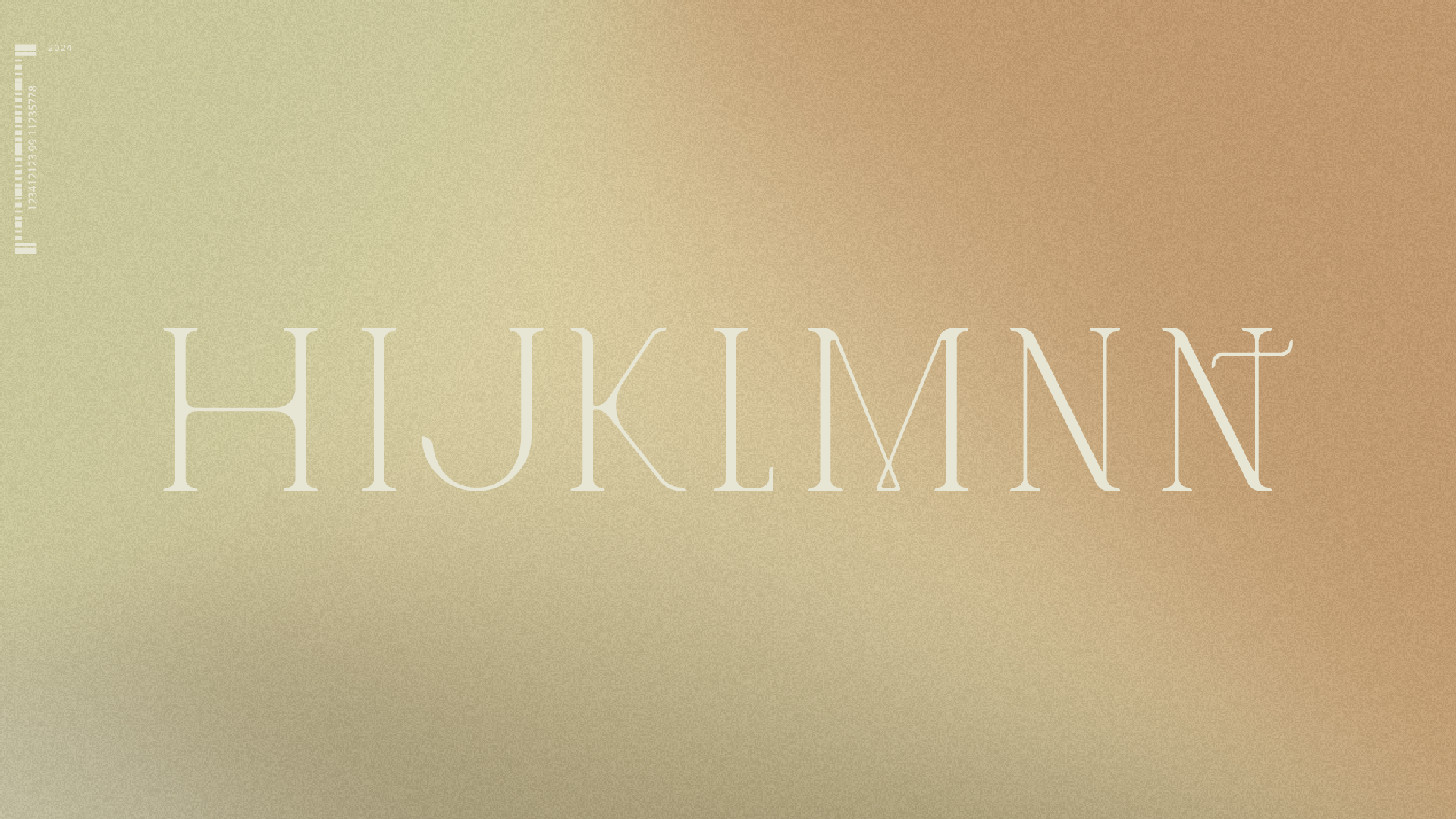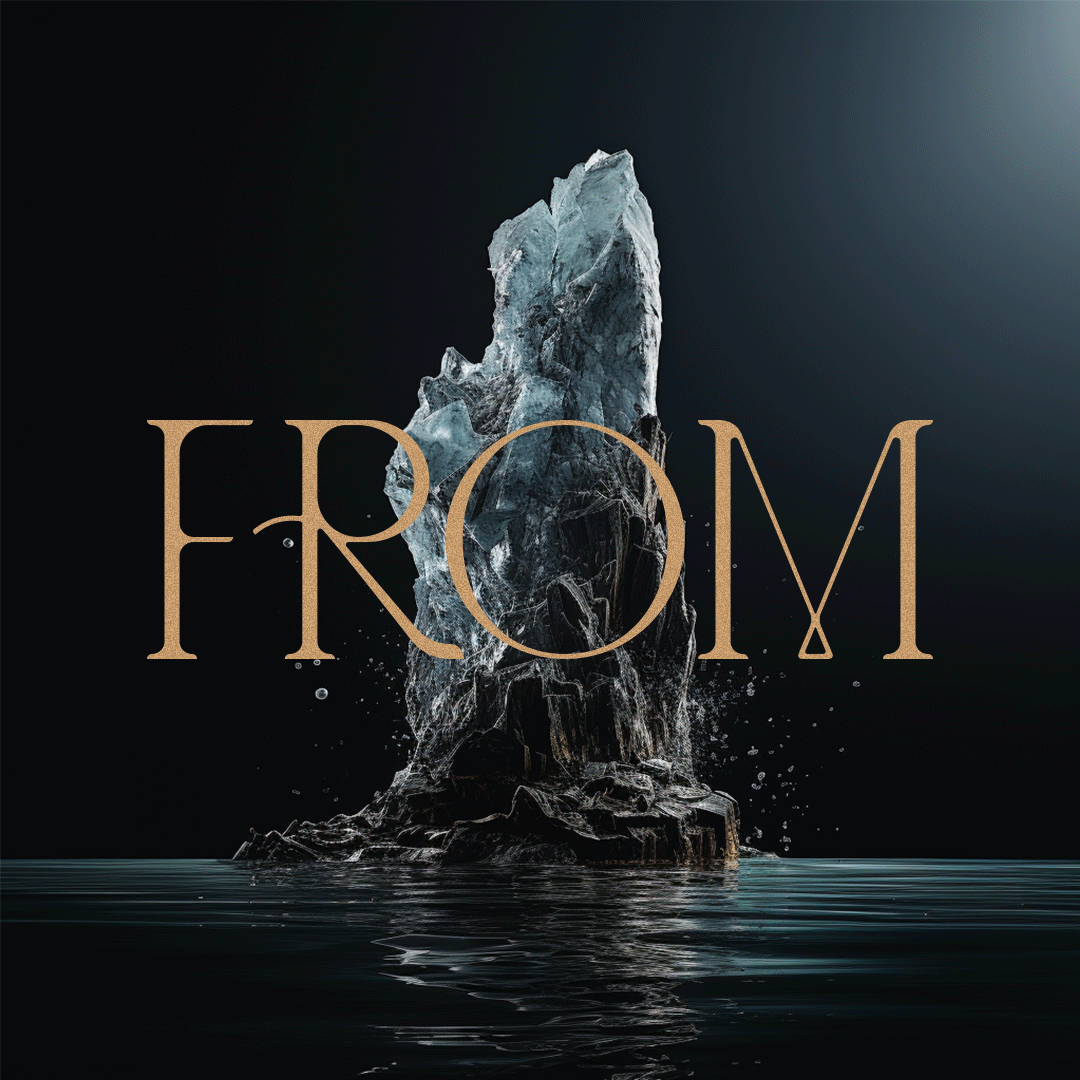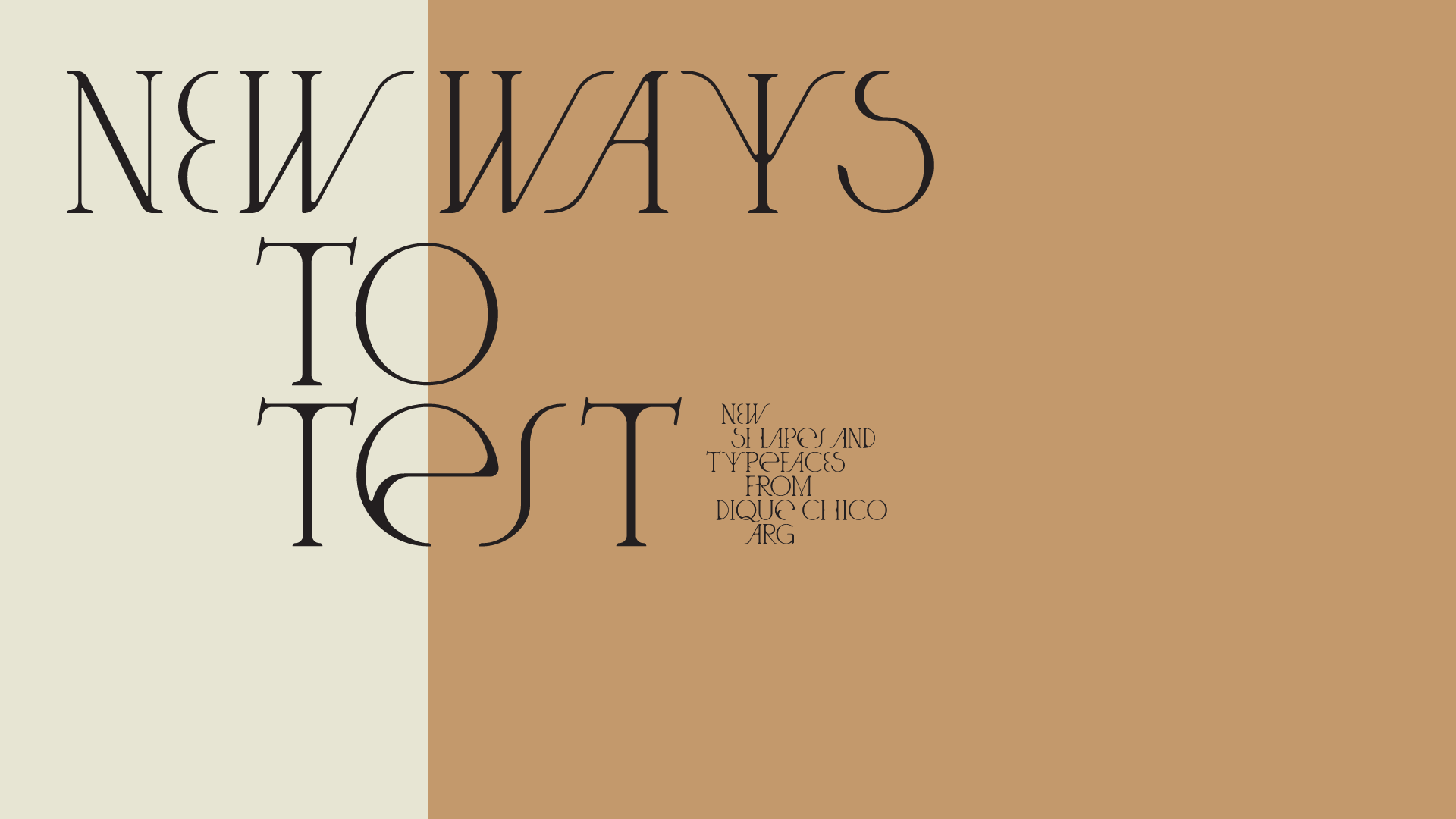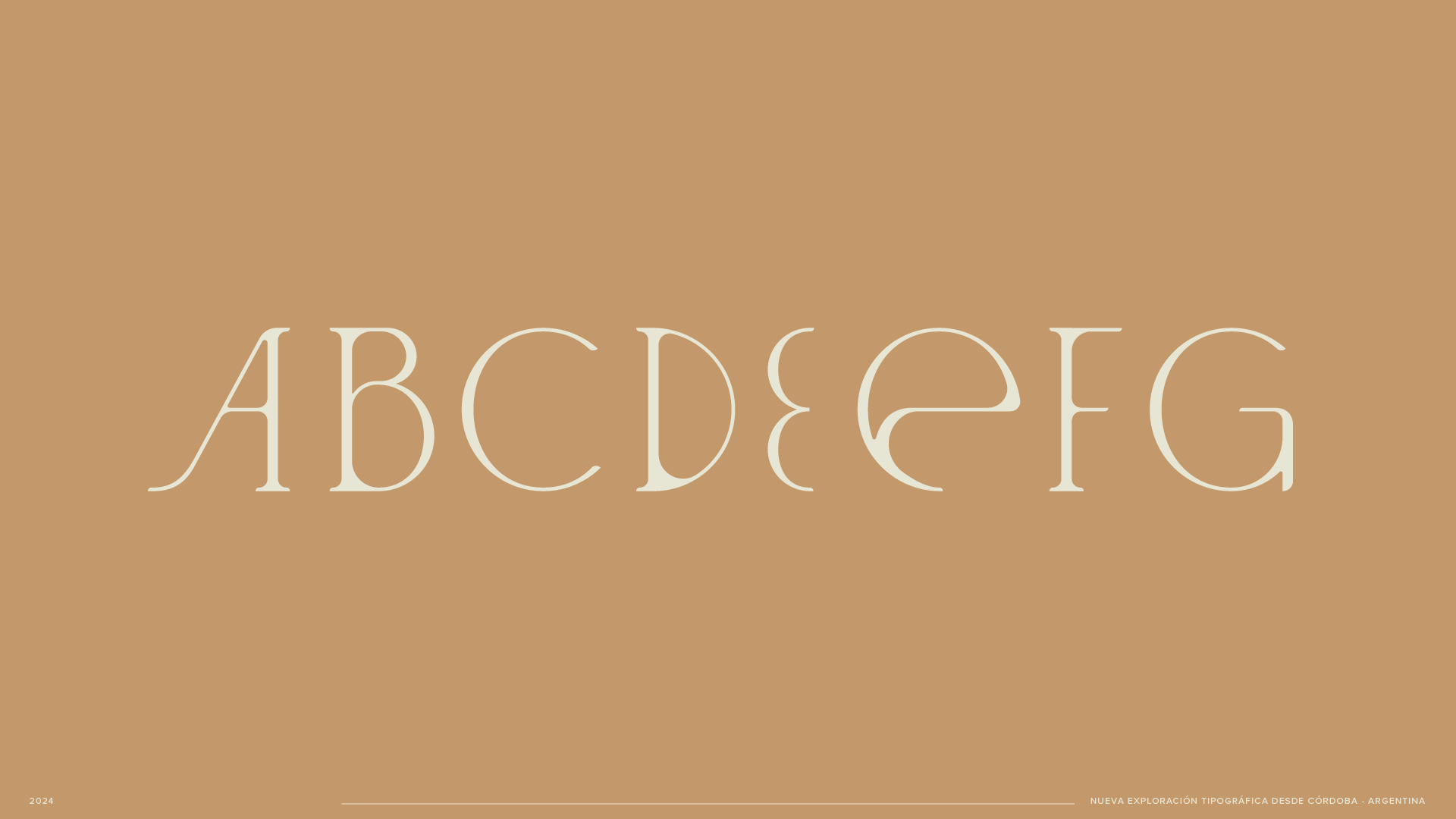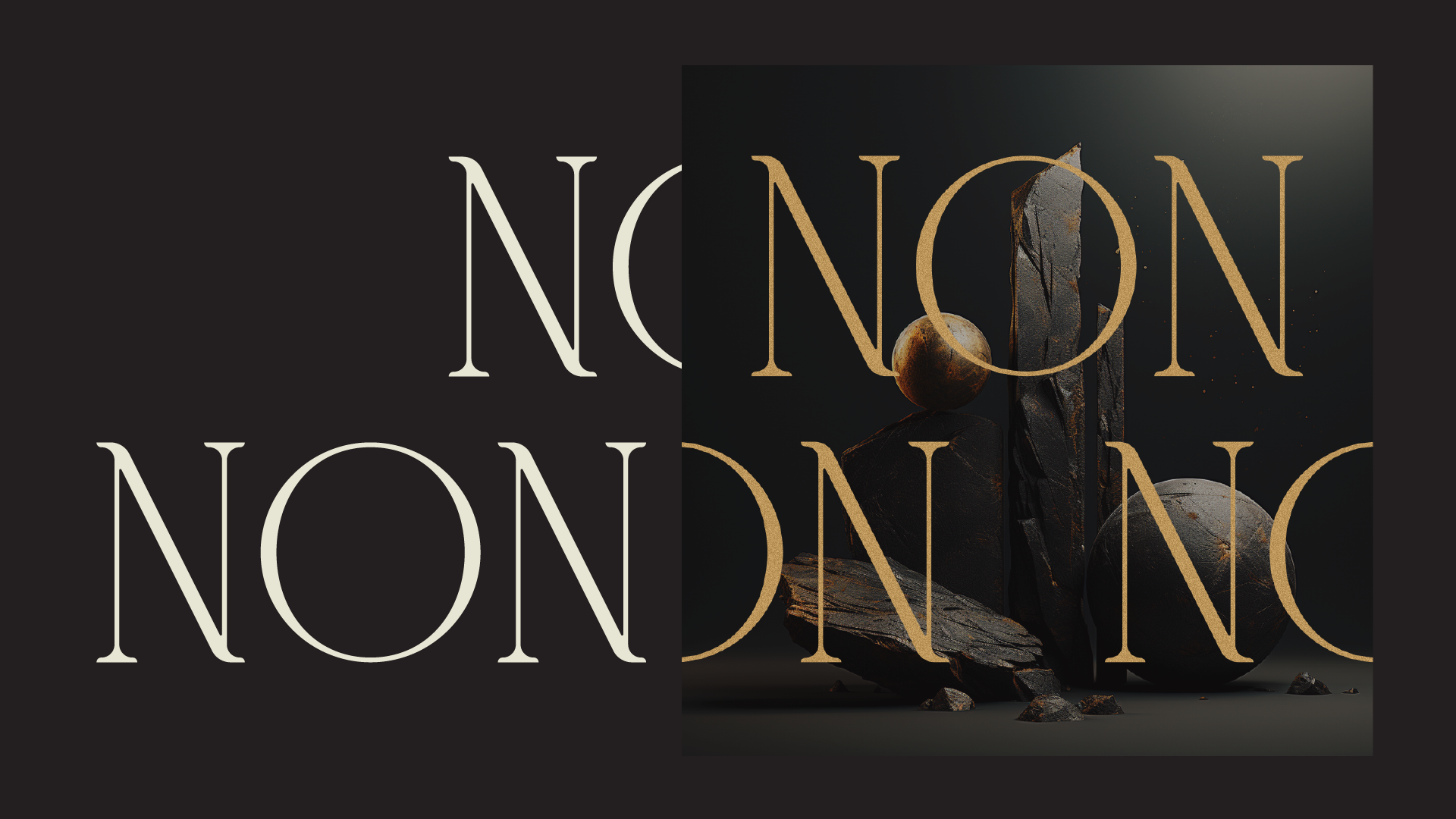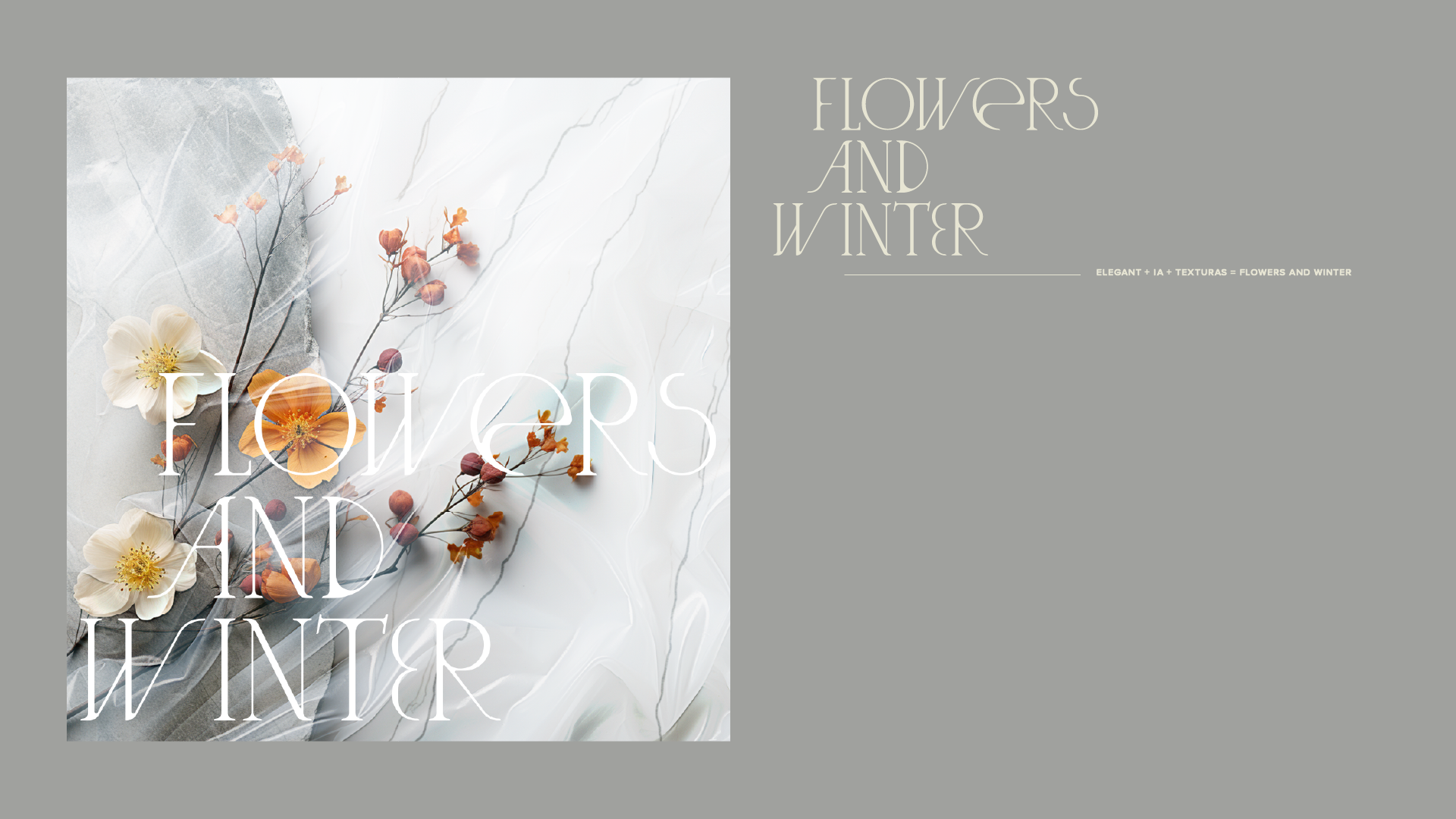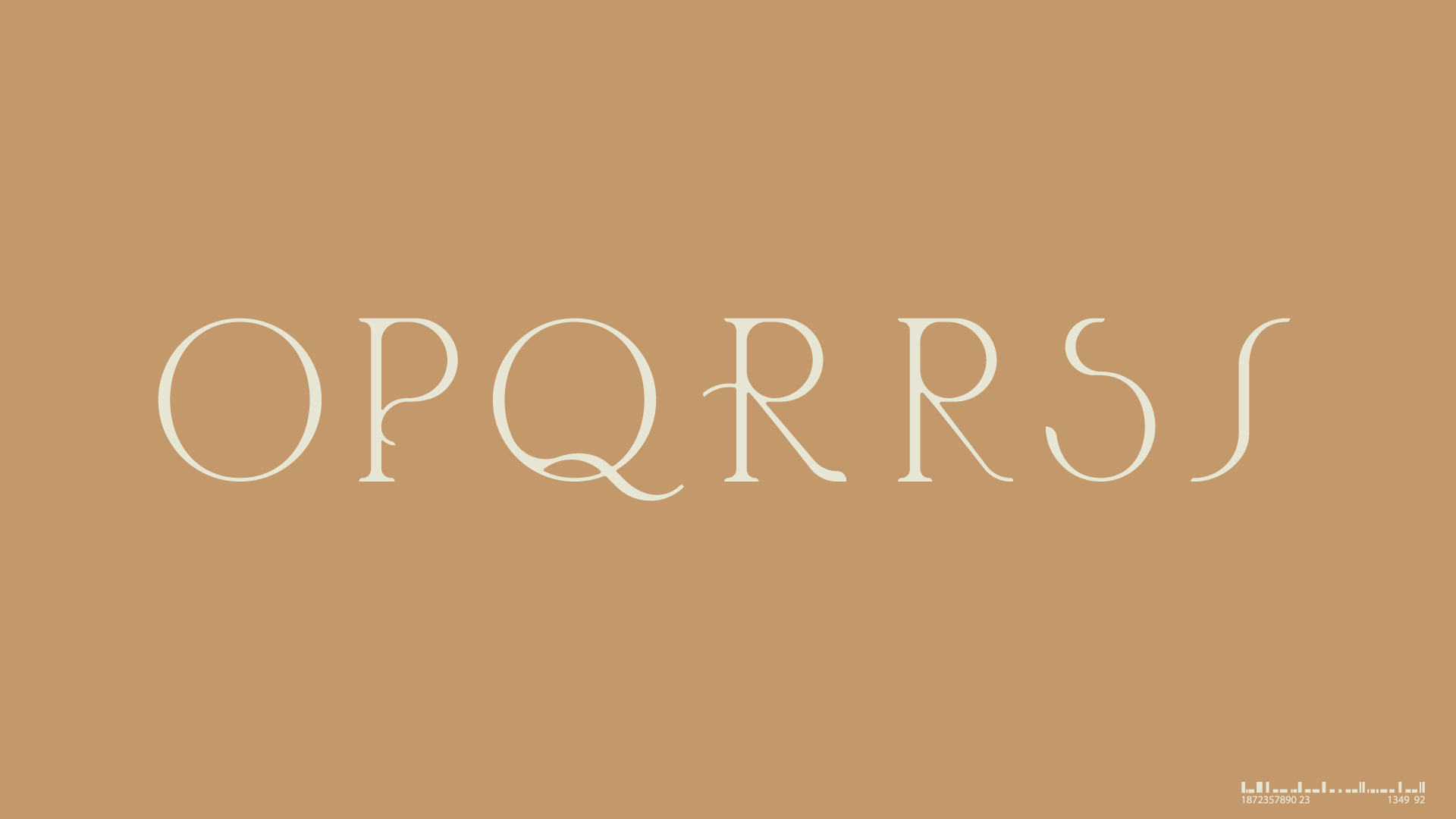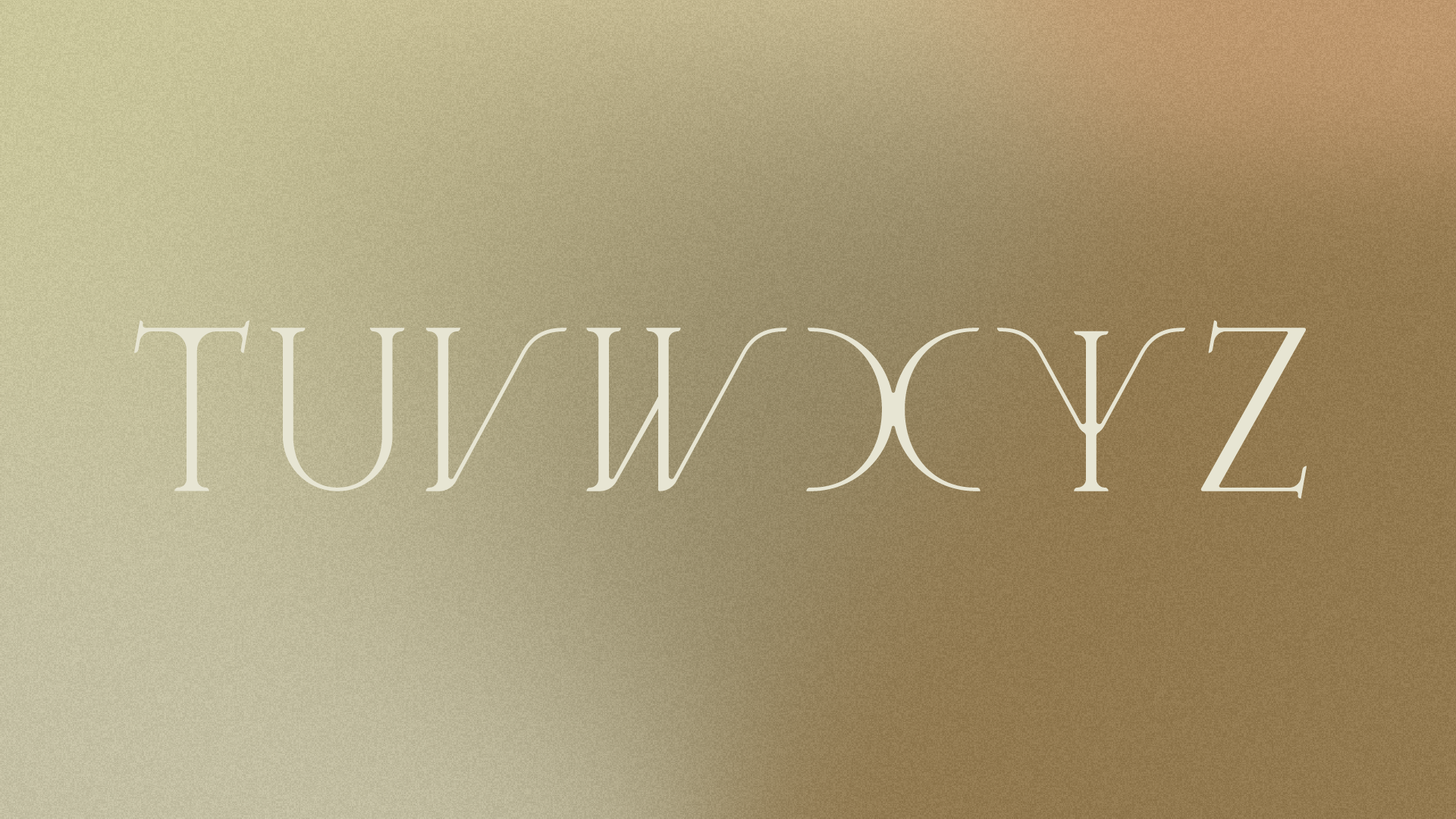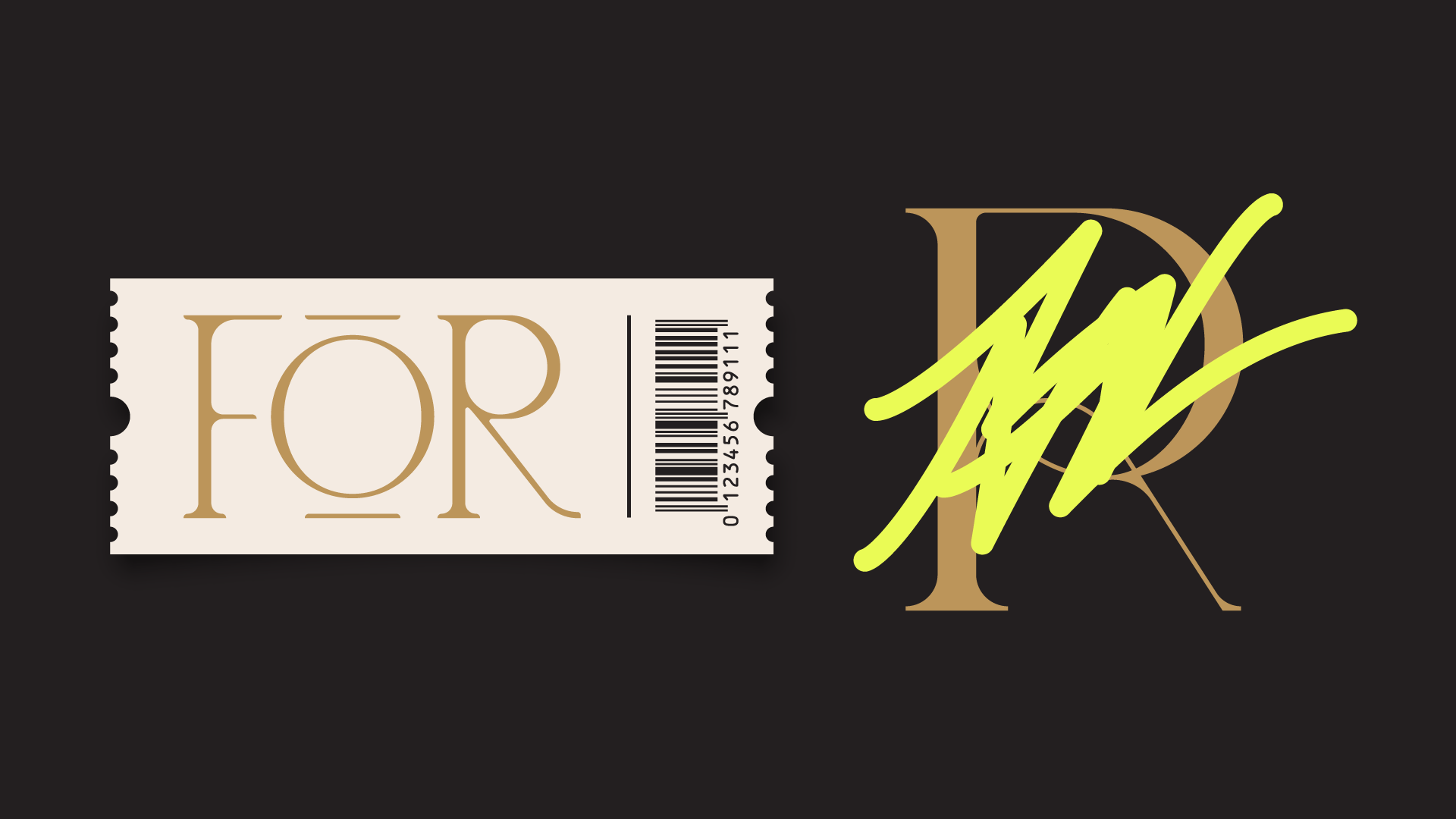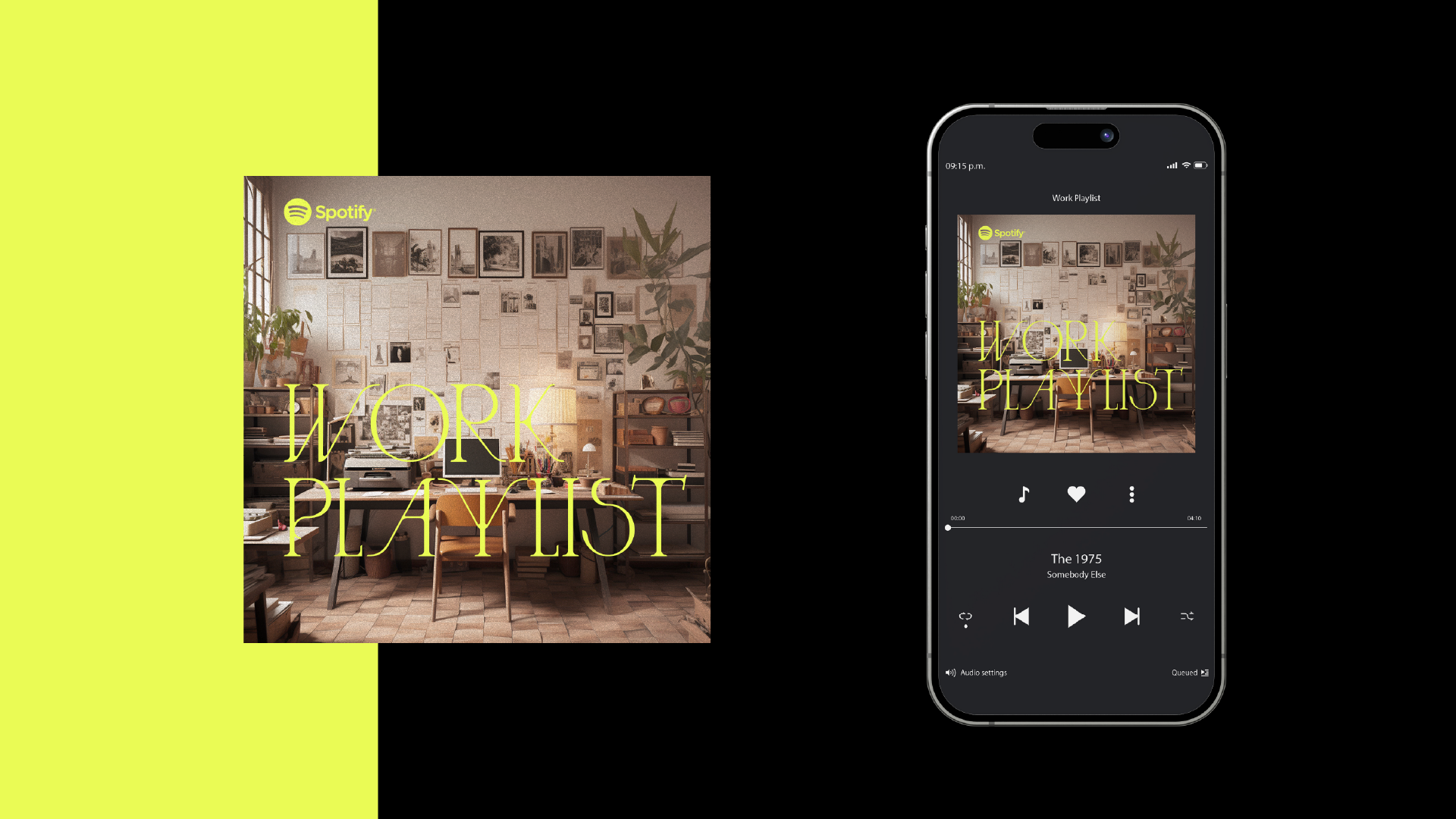
The exploration and search for traits associated with elegance, combined with simple and geometric forms, result in different characters with variable proportions and extreme stroke contrasts. The module is presented as a tool to support their structure and generation. Its use, mainly in display settings and large formats, defines the style and personality.
La exploración y búsqueda de rasgos relacionados con la elegancia, combinadas con formas simples y geométricas, dan como resultado diferentes caracteres con proporciones variables y contrastes extremos de trazo. El módulo se presenta como herramienta para colaborar en su estructura y generación. Su uso, principalmente en display y en formatos grandes, define el estilo y la personalidad.